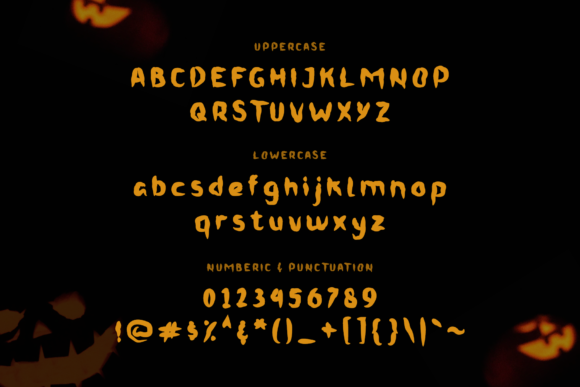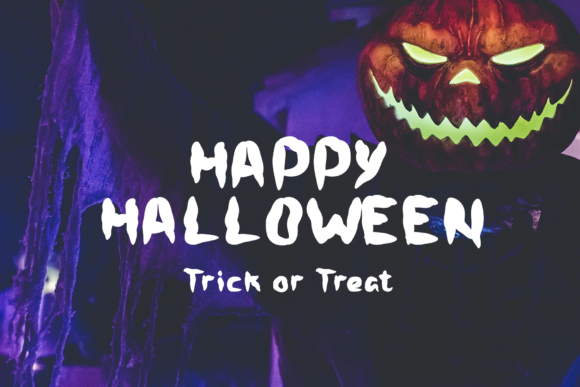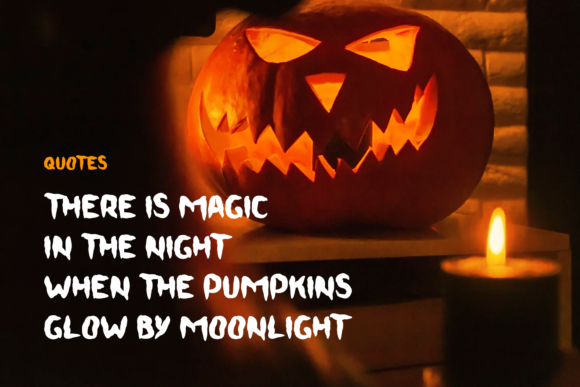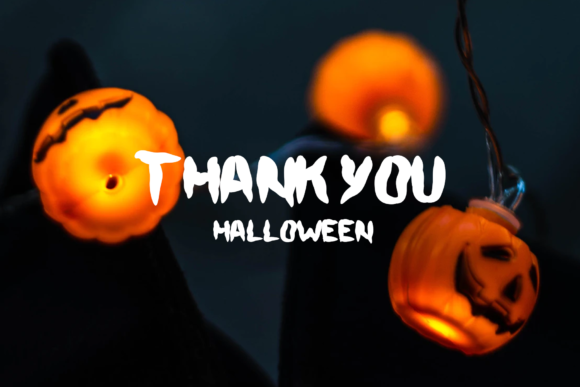
The Angker Font: A Spooky, Quirky Display Font for Halloween and Beyond
As a designer, I’ve had my fair share of late nights scrolling through font libraries, searching for that perfect typeface to bring a project to life. One particularly memorable project was a Halloween-themed invitation for a friend’s costume party. I wanted something that captured the essence of the spooky season, but I just couldn’t find the right fit. That was until I stumbled upon the Angker font. This unique, spooky, and interesting display font has since become a staple in my design toolkit, and I’m excited to share my experience with you.
An Honest Review of Angker Font
So, what makes Angker font so special? Let’s dive into the good stuff and a few quirks I’ve noticed.
• ✨ Unique and Quirky Design: Angker font boasts an unmistakable charm that sets it apart from more traditional typefaces. Its quirky design elements make it perfect for Halloween-themed projects or any design that requires a touch of whimsy.
• ✅ Versatility: Despite its niche appeal, Angker font surprisingly works well across a variety of contexts, from invitations and posters to social media graphics and more.
• 🎃 Halloween Perfection: It’s hard to find a font that screams Halloween (in a good way!), but Angker nails it. The spooky undertones are there, but it’s not so over-the-top that it becomes overwhelming.
While Angker font is fantastic, it’s not without its limitations. Here are a few things to keep in mind:
• 🤔 Legibility at Small Sizes: Like many display fonts, Angker can become difficult to read at smaller sizes. It’s best used for headlines or titles rather than body text.
• ⚠️ Limited Use Cases: While versatile, Angker font does lend itself more towards creative, design-forward projects. It might not be the best choice for more formal or corporate designs.
One of the exciting aspects of Angker font is its support for OpenType features. These features allow for advanced typographic control, making your text even more visually appealing. Here are a few tips:
• Stylistic alternates can add variety to your text, making it more engaging.
• Glyphs, such as spooky symbols or alternative characters, can enhance the thematic elements of your design.
The Backstory of Angker Font
While the exact origins of Angker font might be shrouded in mystery, it’s clear that its designers were inspired by the spooky and unknown. The font’s quirky, offbeat design suggests a creative process that embraced the weird and wonderful, resulting in a typeface that’s both captivating and fun.